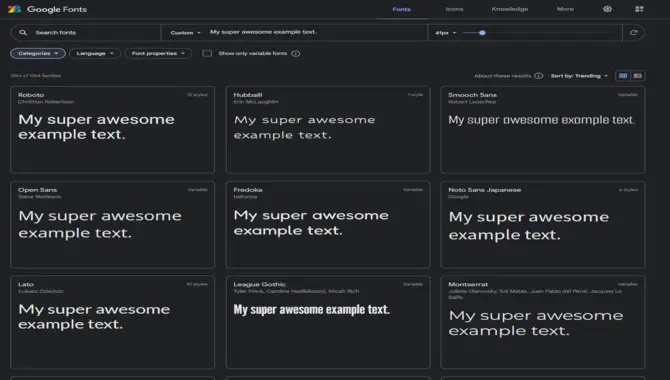
In data visualization, ggplot is one of R programming languages’ most widely used packages. It allows users to create stunning and informative graphs with ease.
One of the critical features of ggplot is the ability to customize the fonts used in the charts. However, with so many font families available, deciding which one to use can be overwhelming.
Choosing the wrong font family can not only detract from the overall aesthetic of the graph but can also make it difficult for the audience to read and interpret the data. That’s why in this blog post, we will discuss all the guidelines of ggplot font family.
We will explore the different types of font families available when to use them, and how to customize font size, colour, and weight. Additionally, we will cover best practices for font usage in data visualizations, such as avoiding all caps and ensuring proper spacing between letters. By following these guidelines, you can create.
Understanding Ggplot Font Family
Understanding ggplot and the font family used in the plots is essential for creating visually appealing and informative data visualizations. ggplot is a powerful tool for creating customizable graphs in R, allowing for the creation of complex and sophisticated plots with relative ease.
However, to fully utilize the potential of ggplot, it is essential to understand the various functions and layers involved in constructing a property. One aspect of ggplot that can significantly impact the overall aesthetic of a plot is the font family used.
The font family determines the style and appearance of the text in the field, which can make a big difference in how easy it is to read and understand the presented information. For example, using a serif font family like Times New Roman can give the plot a more traditional and formal look. In contrast, a sans-serif font family like Helvetica can provide a more modern and clean appearance.
Careful consideration should be given to the choice of font family to ensure that it is appropriate for the type of information.
Exploring Font Family Options In Ggplot
When creating visually appealing and compelling data visualizations, ggplot is a popular tool data analysts and scientists use. One of the critical elements in creating compelling visualizations is the selection of an appropriate font family.
The wrong font can make the visualization appear cluttered, difficult to read or unprofessional. Fortunately, ggplot offers a variety of font family options to choose from that can enhance the visual appeal of the visualization. These options include sans-serif, serif, mono and more.
Exploring the various font family options in ggplot can help data analysts choose the right font that suits the purpose of the visualization. For instance, sans-serif fonts can create a modern and clean look to the visualization.
On the other hand, serif fonts are often used to create a traditional, sophisticated and formal look. Mono fonts, on the other hand, are popular choices for displaying code and additional computer-related information.
Using System Fonts In Ggplot
When creating beautiful data visualizations, ggplot is a versatile and powerful tool for creating graphs and charts. One of the many features of ggplot is the ability to customize fonts to suit your design needs.
By default, ggplot uses the standard Arial font, but you can change to different fonts to enhance the aesthetic appeal of your graphs. One way to achieve this is by using system fonts in ggplot. System fonts refer to the fonts installed on your computer’s operating system, such as Times New Roman, Helvetica, or Calibri.
To use system fonts in ggplot, you can specify the font family as the name of the desired font, and ggplot will automatically locate and use it. This method is beneficial when you want to maintain consistency in your branding or ensure that your graphs match the font style used in your report or presentation. Moreover, operating system fonts can help you save time and effort in creating custom fonts for each project.
Installing Ggplot Font – Step By Step Guideline
If you want to improve your data’s visualisations in R, installing the ggplot font is a significant first step. The ggplot2 package allows for more aesthetically pleasing graphics and customization options. To install the font, follow this step-by-step guide.
First, open R and run the command `install—packages (“ggplot2”)` to install the package. Once installed, load the box using the command `library(ggplot2)`.
Next, navigate to the website https://github.com/wch/extrafont and download the package. Once downloaded, unzip the package and run the command `install—packages (“extra font”)` to install it.
After installing the package, run the command `font_import()` to import all fonts on your system.
Finally, run the command `load fonts ()` to load the fonts into R. With the fonts installed and packed, you can customize your ggplot graphics.
How To Change Font Family In Ggplot
When creating visualizations in ggplot, paying attention to the font family used is essential. This can have a significant impact on the readability and overall aesthetic of the plot. Thankfully, changing the font family in ggplot is relatively straightforward.
First, you must install the extra font package by running `install. packages(“extra font”)`. Once that’s done, you can import the font you want by running `font_import()`, which will scan your computer for any available fonts.
After importing the font, you can set it as the default font for your ggplot by adding `theme(text = element_text(family = “Font Name”))` to your code. Be sure to replace “Font Name” with the font name you want to use.
You can also change the font family for specific elements of the plot, such as the axis labels, by adding `+ labs’ (x = “X-Axis Label”, y = “Y-Axis Label”, title.
Modifying Ggplot Font Size And Style
When creating data visualizations with ggplot2, choosing the right fonts and font sizes can make a big difference in your graphs’ overall aesthetic and readability. Fortunately, ggplot2 makes modifying font sizes and styles easy to tailor your chart to your specific needs.
To adjust the font size of your text, you can use the `theme()` function and modify the `text` argument. For example, `theme(text = element_text(size = 14))` would increase the font size of all text in your plot to 14. You can also modify the font family and style using the `family` and `face` arguments.
For instance, `theme(text = element_text(family = “Arial”, face = “bold”))` would change the font family to Arial and make all text bold. Using the ‘ axis, you can also modify specific elements of your plot’s text, such as the x and y-axis labels. Title`.
How To Adjusting Ggplot Font Color And Transparency
If you’re looking to customize the look of your ggplots in R, adjusting the font colour and transparency can make a big difference. Adjusting the font colour can highlight important information or make certain elements stand out. And by changing the transparency, you can create a more subtle and nuanced visualization.
To adjust the font colour in ggplot, you can use the “colour” argument within the “AES” function. For example, if you want to make the text in your plot red, you would use “color = ‘red'” within the “aes” function. To adjust the transparency of your property, you can use the “alpha” argument within the “AES” function.
For example, if you want to make your plot more transparent, you would use “alpha = 0.5” within the “AES” function. These adjustments can be made to any element within your ggplot, including the title, axis labels, legend, and plot points.
Best Practices For Font Usage In Ggplot
When creating visualizations using ggplot, it is essential to follow the best practices for font usage to ensure that your graphics are visually appealing and easy to read. One of the most important considerations when choosing fonts in ggplot is to make sure they are legible and easy to read at various sizes.
Sans-serif fonts like Arial, Helvetica, and Calibri are popular choices for text in ggplot, as they are clean and easy to read even at smaller sizes. It is also essential to choose font sizes appropriate for the size of your plot and the amount of text you are using.
For example, larger fonts may be necessary for titles and labels, while smaller fonts may be more appropriate for annotations and axis tick labels. Another essential consideration is font style. Using bold or italics sparingly is generally recommended, as they can be challenging to read at smaller sizes and distracting when overused. Finally, it is essential to ensure that your font choices are.
Troubleshooting Font Ggplot Issues
Troubleshooting font ggplot issues can be a frustrating experience for data analysts and visualization enthusiasts. One common issue is when the font used in a ggplot does not appear as expected. Various factors, such as incorrect font encoding, missing font files, or outdated packages, can cause this.
To begin troubleshooting, it is essential to ensure that the correct font is installed on the device used to create the ggplot. This can be done by checking the system font settings or downloading the font from a trusted source. If the font is installed correctly but still not showing up as expected, it may be necessary to check the encoding of the font file itself and ensure that it matches the encoding specified in the ggplot code.
Additionally, updating the ggplot package and other relevant packages may help to resolve font issues. In some cases, it may also be helpful to consult online resources or seek assistance from the ggplot community to troubleshoot more complex font issues.
Understanding how to change font family in ggplot can significantly improve your data visualizations’ visual appeal and clarity. Whether you are creating graphs and charts for a presentation or publication or to understand your data better, the ability to customize the font family can make a big difference. With the various options and approaches outlined in this post, you can confidently choose and implement the font family that best suits your needs.
FAQs:
1.How Can I Change The Font Family In Ggplot?
Ans. You can change the font family in ggplot by using the theme() function and specifying the text argument, such as theme(text = element_text(family = “Arial”)).
2.What Are The Available Font Families In Ggplot?
Ans. The available font families in ggplot typically depend on the fonts installed on your system. Joint font families include “Arial”, “Helvetica”, “Times New Roman”, “Courier New”, and “Georgia”, among others.
3.Can I Use Google Fonts In Ggplot?
Ans. Yes, you can use Google Fonts in ggplot. You need first to download the font file and install it on your system. Once established, you can specify the font family name in ggplot, just like any other font.
4.How Do I Make The Font Bold In Ggplot?
Ans. To make the font bold in ggplot, use the spirited argument within element_text(). For example, theme(text = element_text(family = “Arial”, face = “bold”)) will set the font family to Arial and make it bold.
5.Can I Set A Global Font Family For All Elements In Ggplot?
Ans. You can set a global font family for all elements in ggplot using the theme_set() function. For instance, theme_set(theme(text = element_text(family = “Arial”))) will set Arial as the font family for all text elements in ggplot.